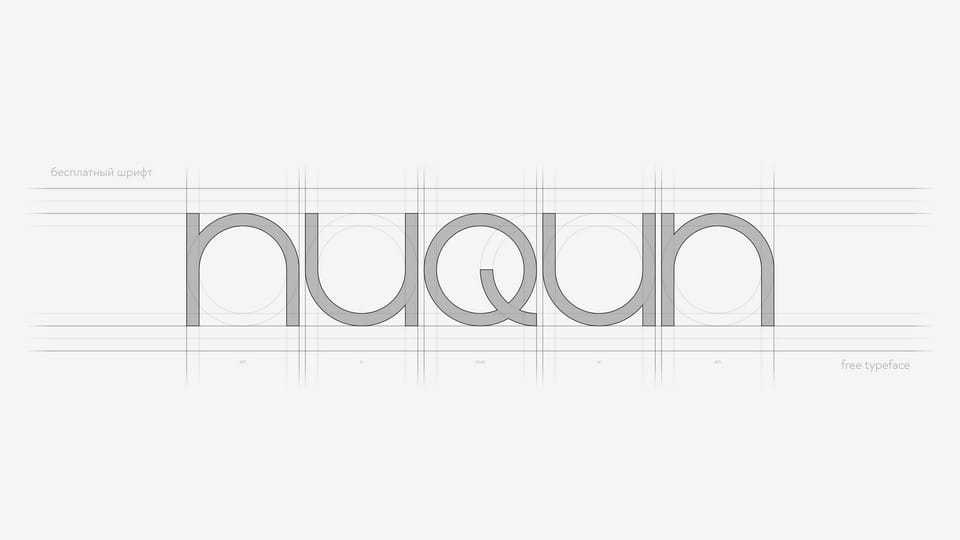
Nuqun Font › Fontesk – Download Grátis
Download Nuqun font, a geometric sans-serif typeface designed to bring clarity, balance, and structure to modern layouts. Its clean construction and circular forms create a calm and rational mood, making it perfect for contemporary design projects.